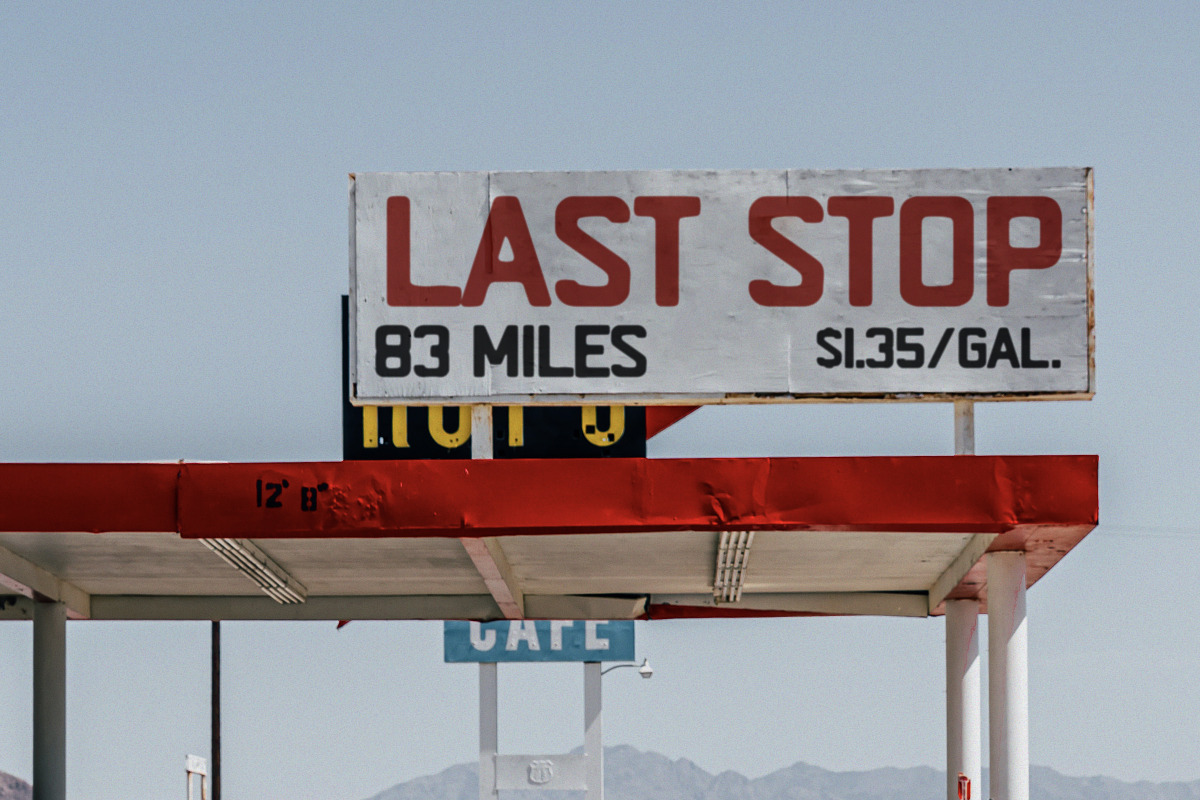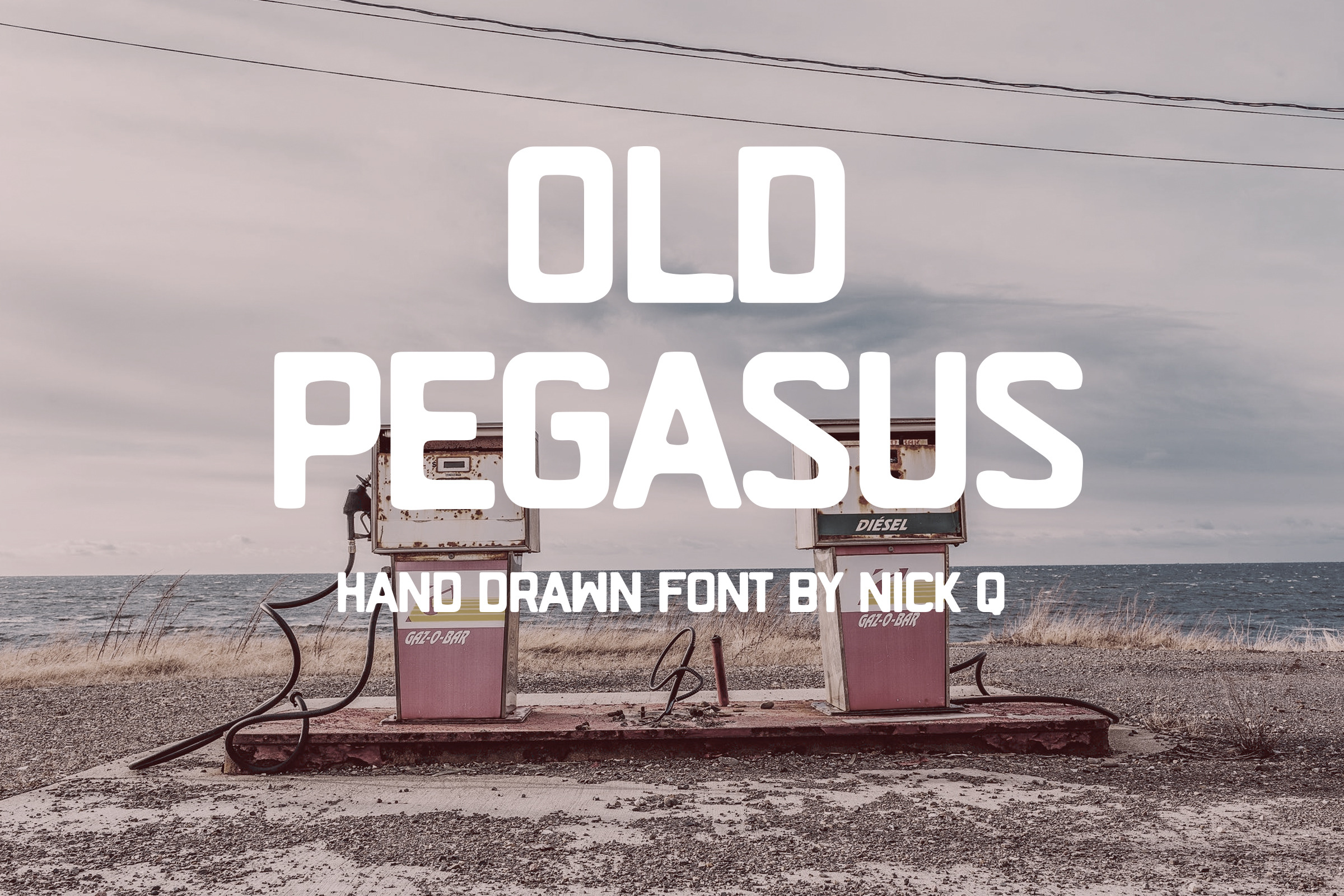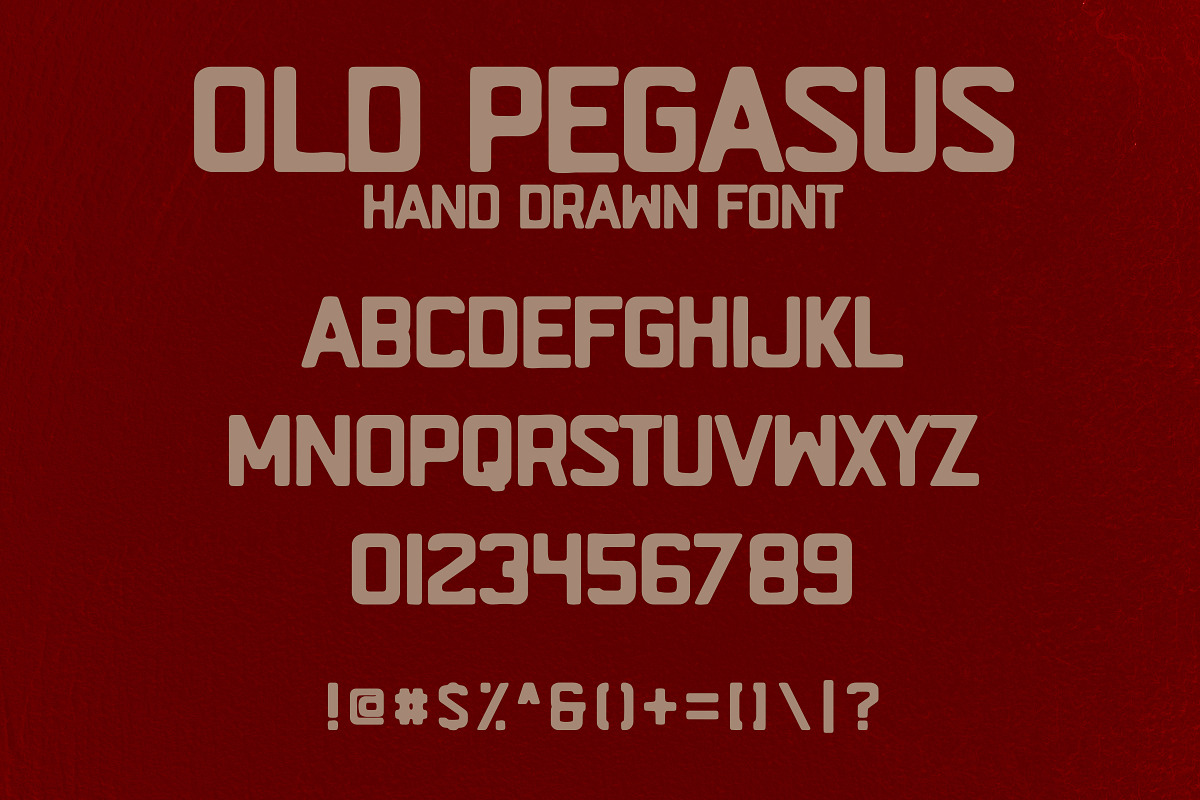
Old Pegasus Hand Drawn Font
My newest font is inspired by ghost towns and gas stations in small towns in Texas, this one is called Old Pegasus. Old Pegasus is hand drawn with rough, rounded edges on what could have easily been straight and perfect. Of course, I enjoy the touches of a hand drawn font when it has imperfections a little more than a basic font.